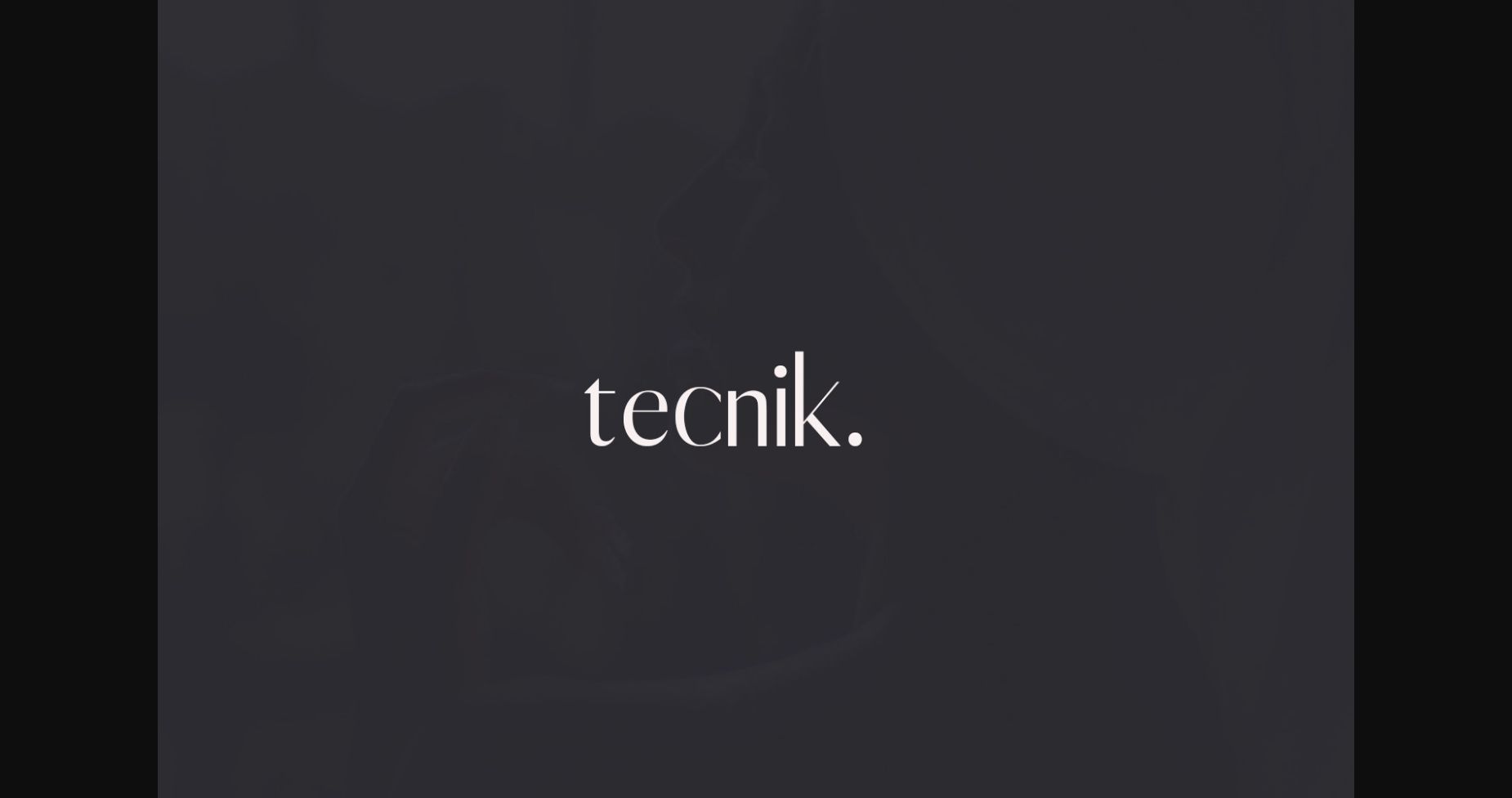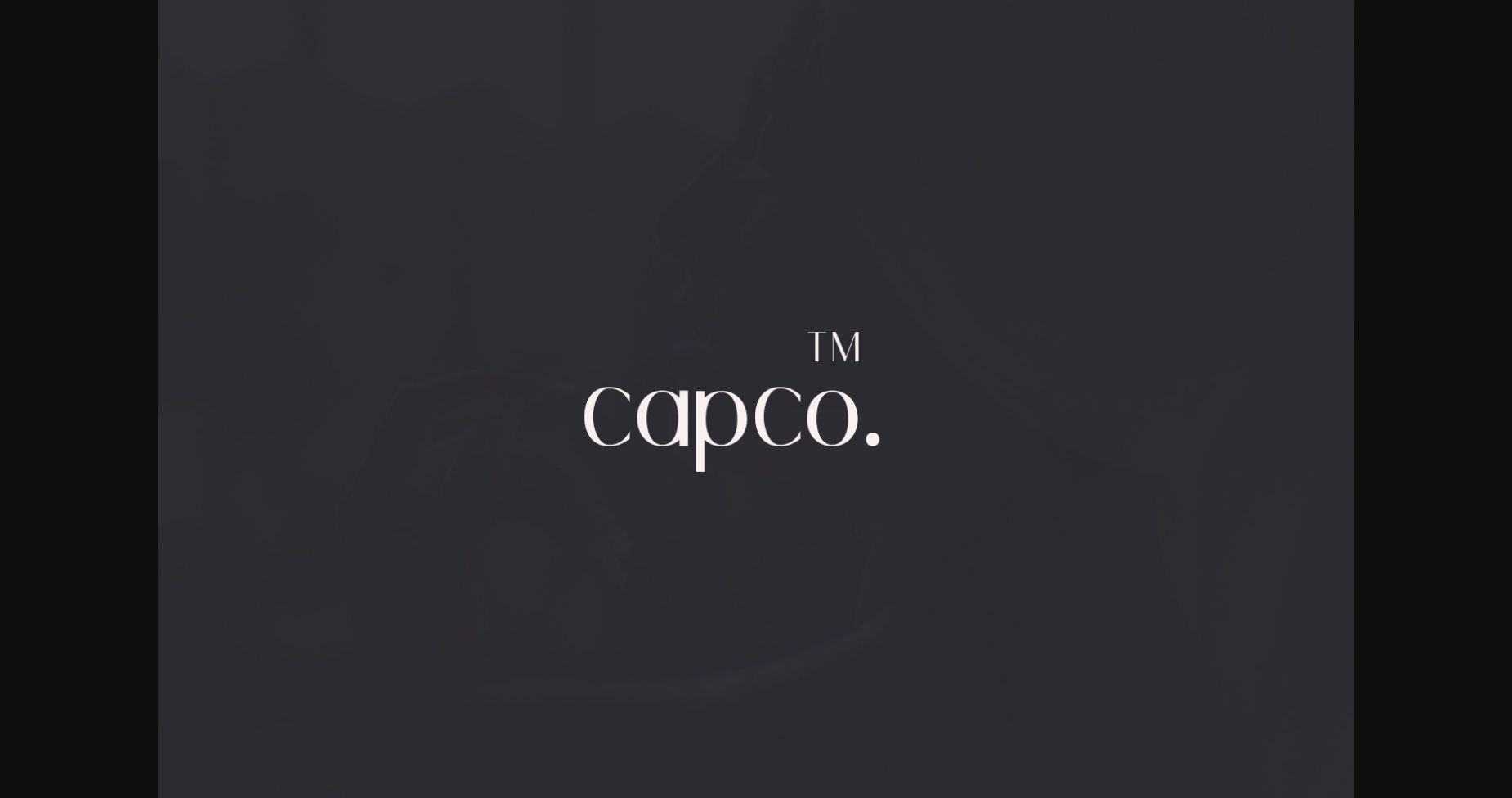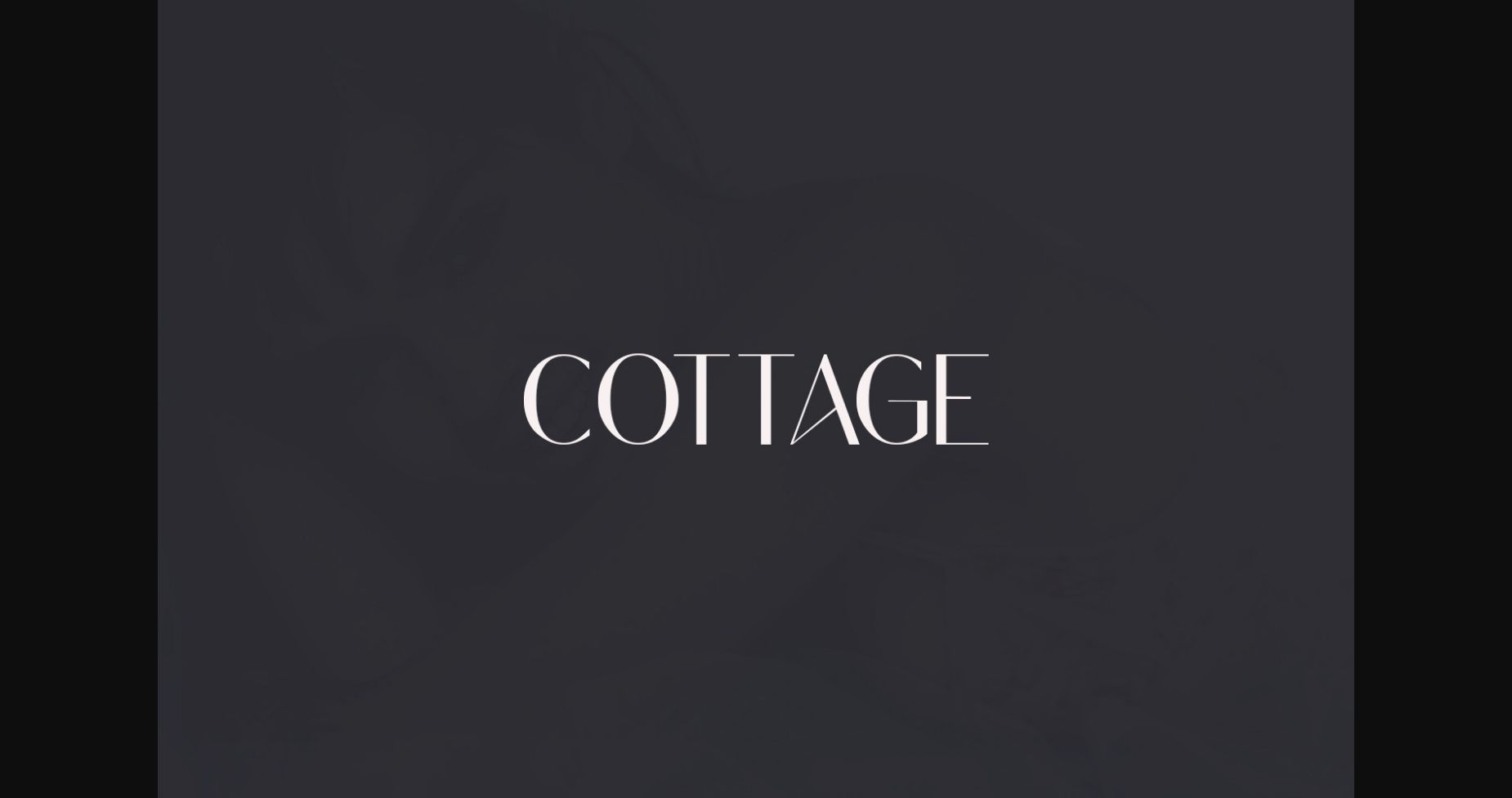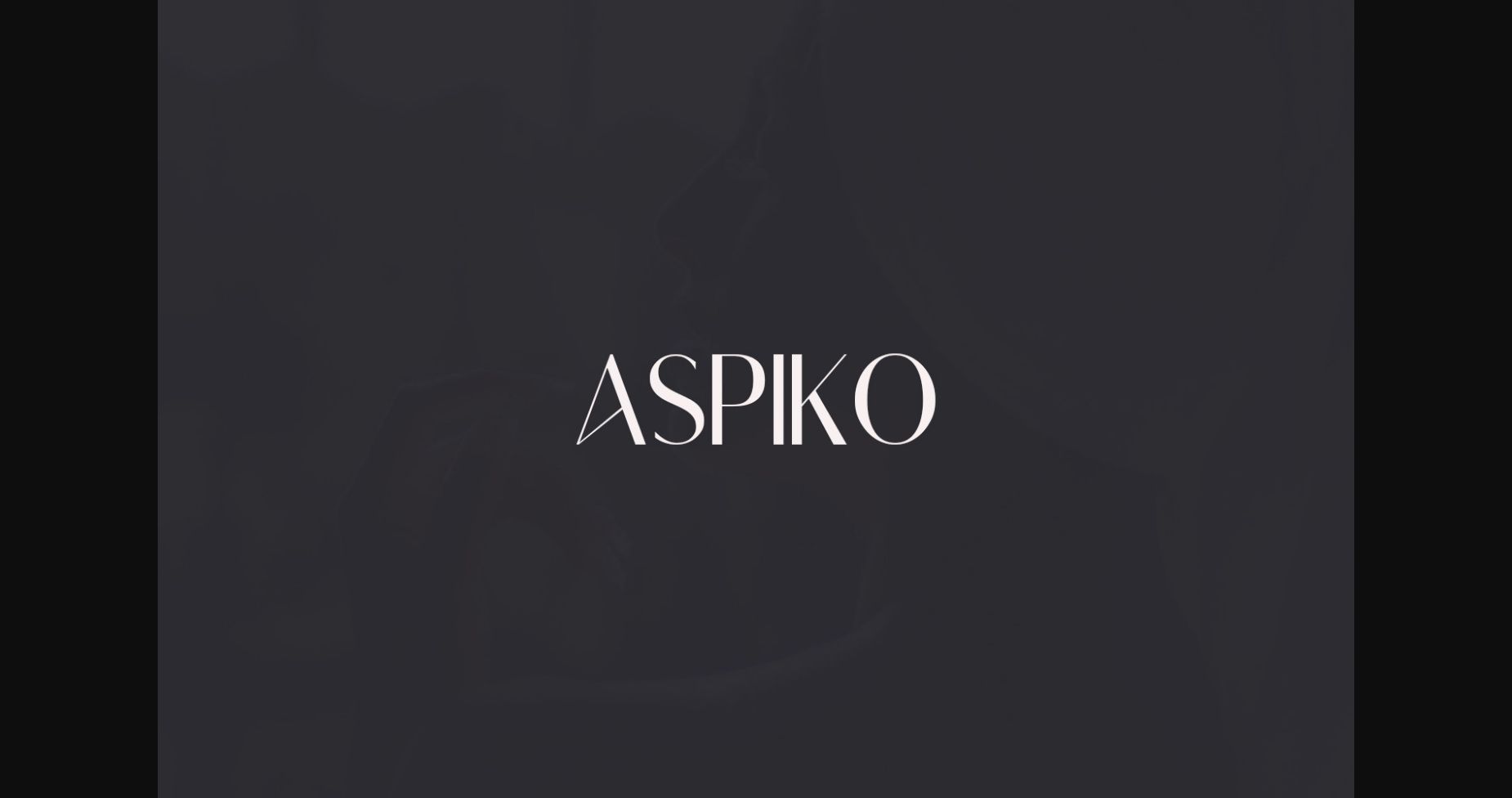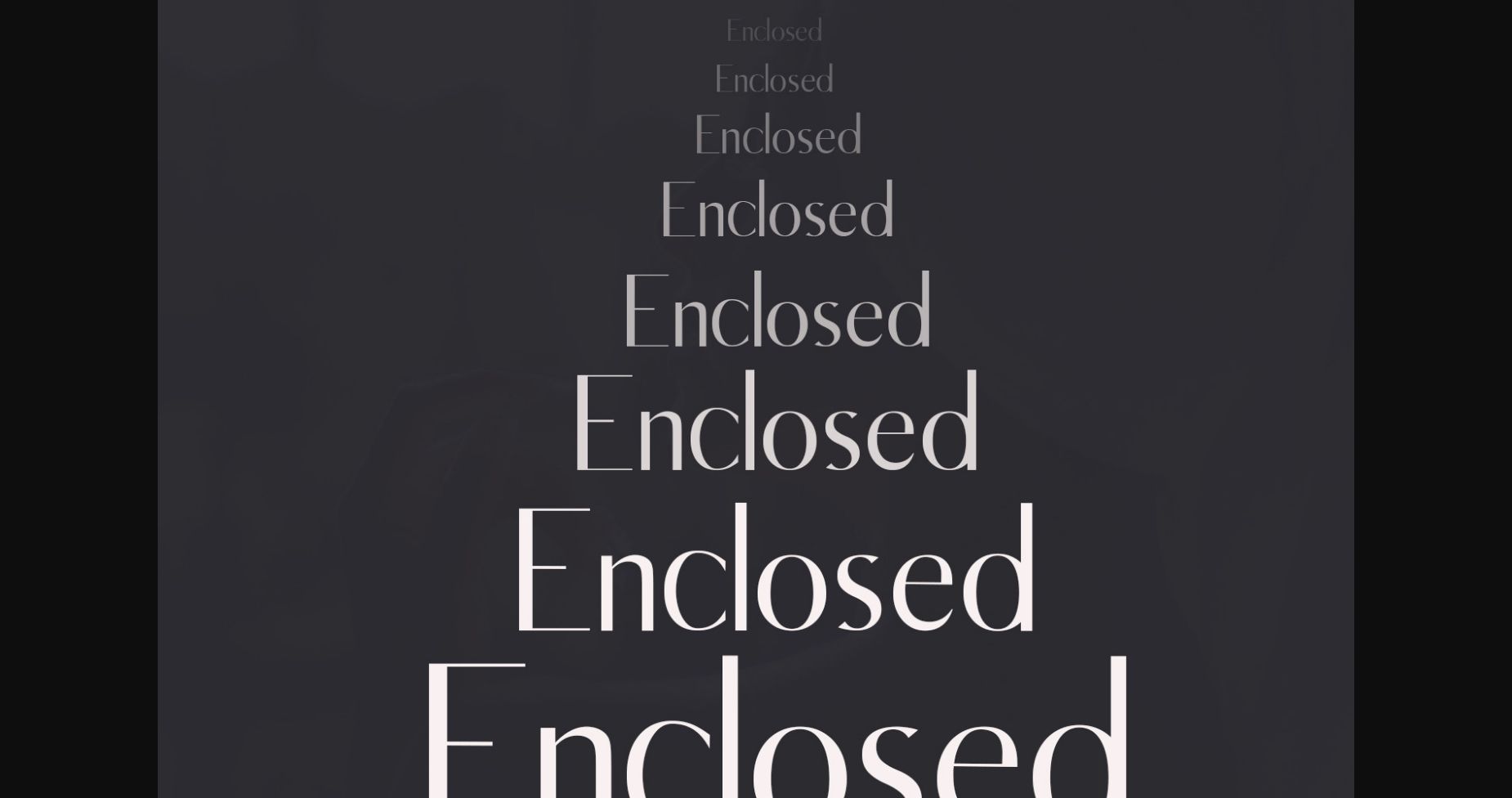
HomeSans Serif FontsTecnik Font Sans Serif Fonts Tecnik Font FacebookXPinterestWhatsApp 1 of 7 ... Tecnik Font Poster 2... Tecnik Font Poster 3... Tecnik Font Poster 4... Tecnik Font Poster 5... Tecnik Font Poster 6... Tecnik Font Poster 7... About Tecnik Font Tecnik is a thin lettered and simple sans serif font. Suitable to a wide variety of designs due to its clean style, this font has the potential to become your favorite go-to font, no matter the occasion! DOWNLOAD NOW People also explored Buana Company Font Freakland Greenhouse Font Herliana Font Bricks Wall Font Kaanaya Font Nottingham Font Fantastic Font Radical Brush 419 0 TagsTecnikTecnik Font Previous articleAqualine FontNext articleBacardy Font LEAVE A REPLY Cancel reply Comment: Please enter your comment! Name:* Please enter your name here Email:* You have entered an incorrect email address! Please enter your email address here Website: Save my name, email, and website in this browser for the next time I comment. Personal Use Free Colourbars Personal Use Free Read more about this font The Brighton Personal Use Free Read more about this font Gdynia Personal Use Free Read more about this font Tanpax Personal Use Free Read more about this font BLOG Free vs Paid Fonts: Why Investing in Premium Fonts Is Worth It Free vs Paid Fonts: Why Premium Fonts Are Worth It in 2025 The debate of free vs paid fonts continues in the design world. While... Transform Your Website: Elevate Your Typography with 7 Best Web Font Generators 5 Fonts That Will Dominate Design Trends in 2026 How to Cut Any Font on Cricut: Convert a Font to SVG (Free)